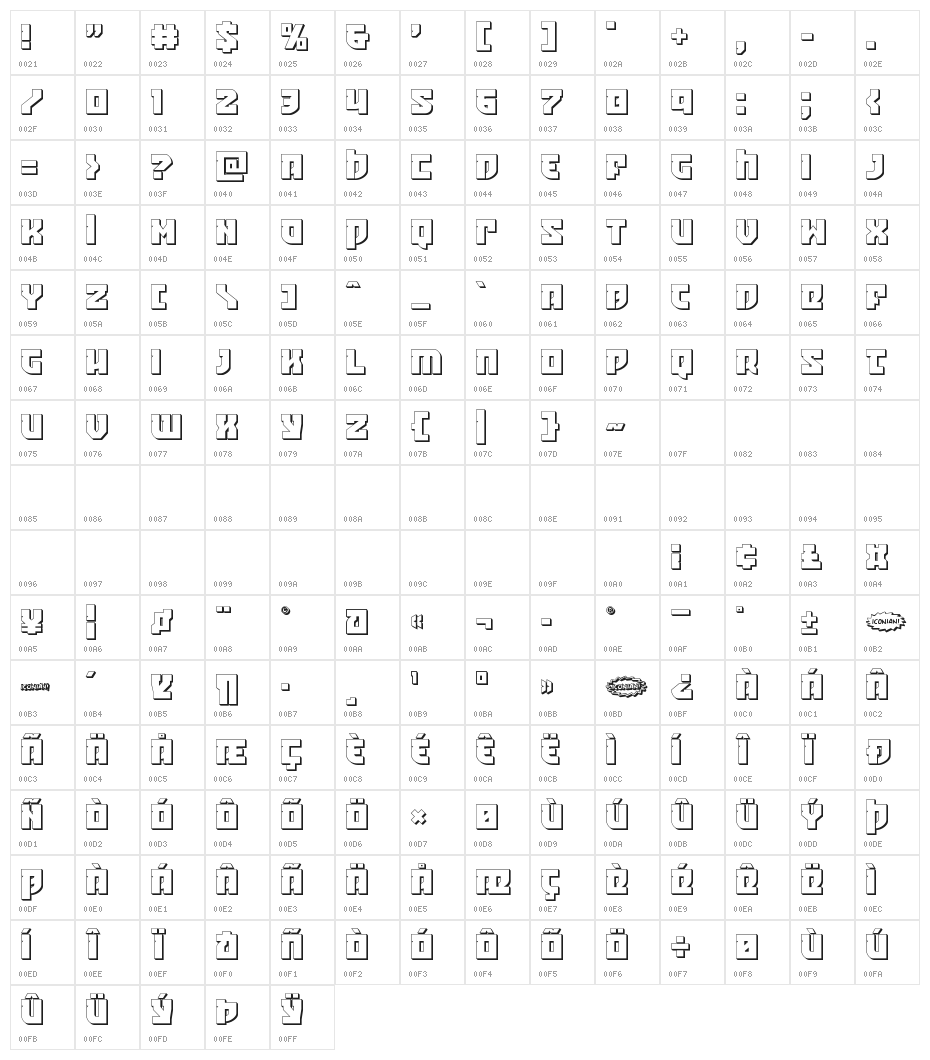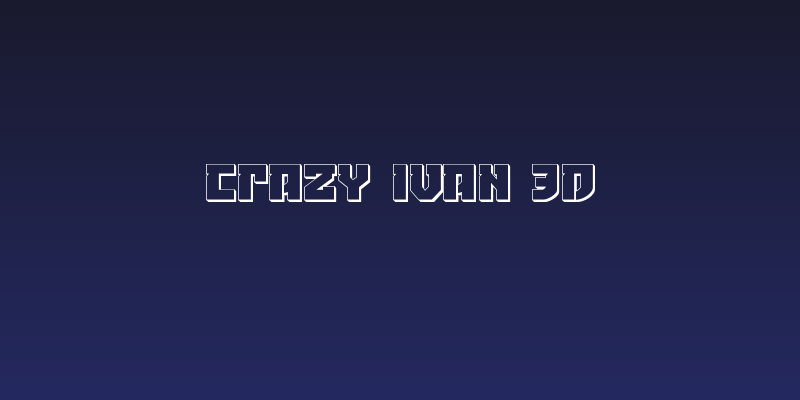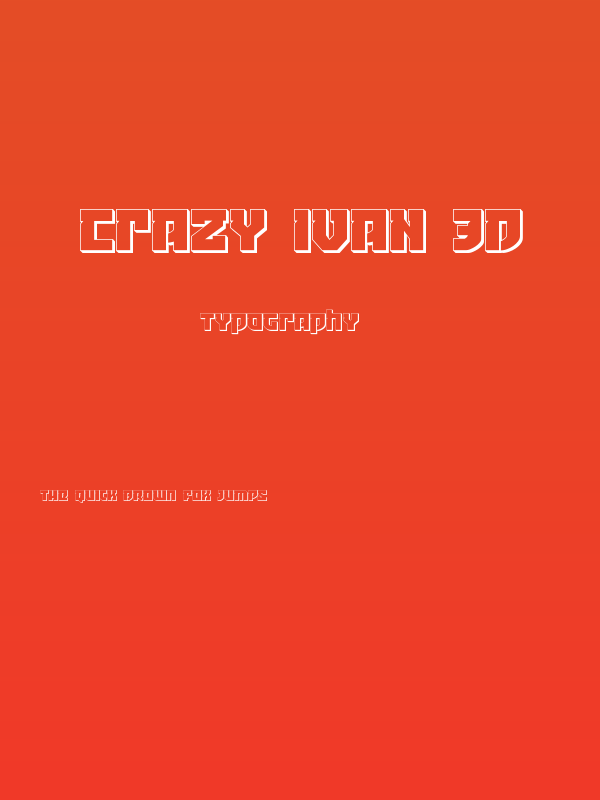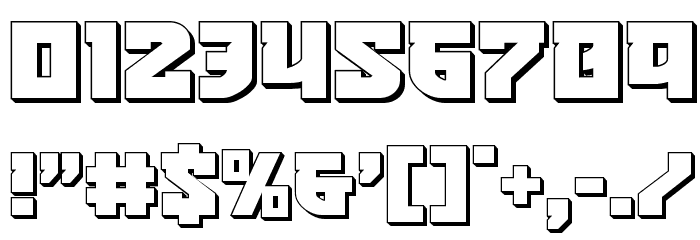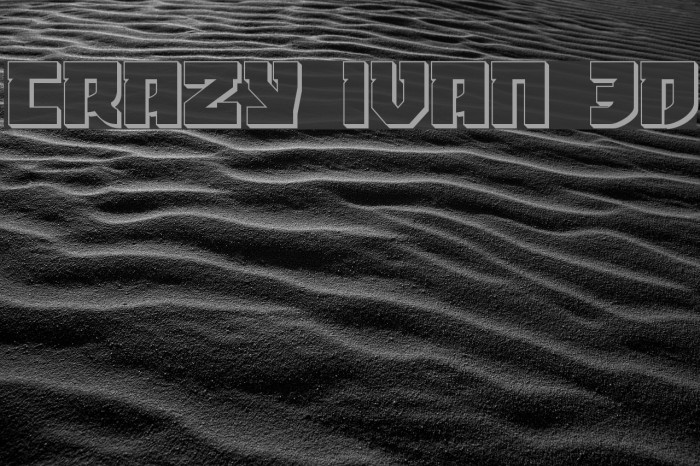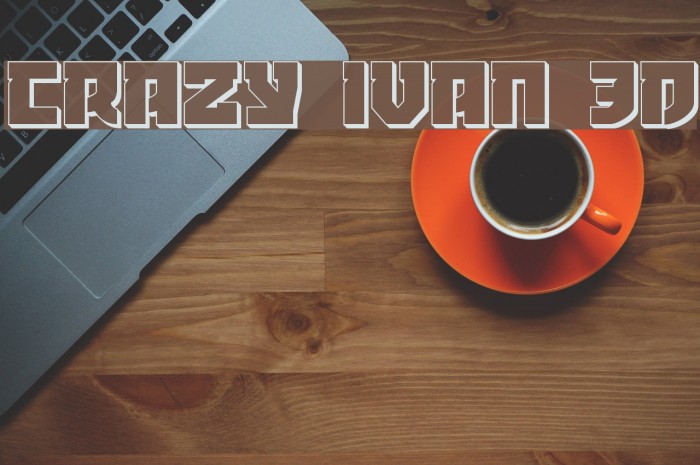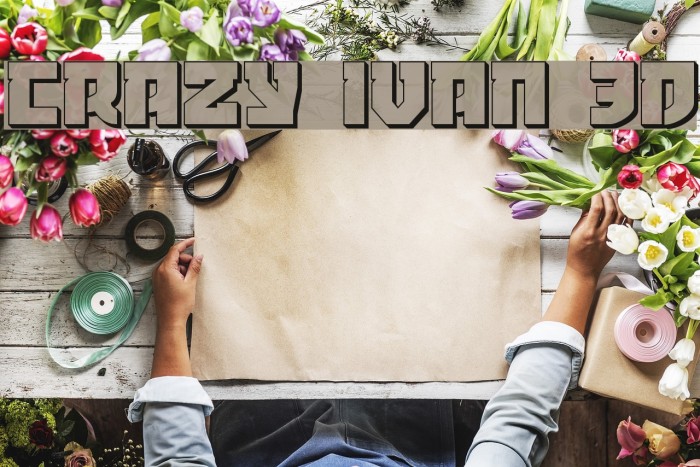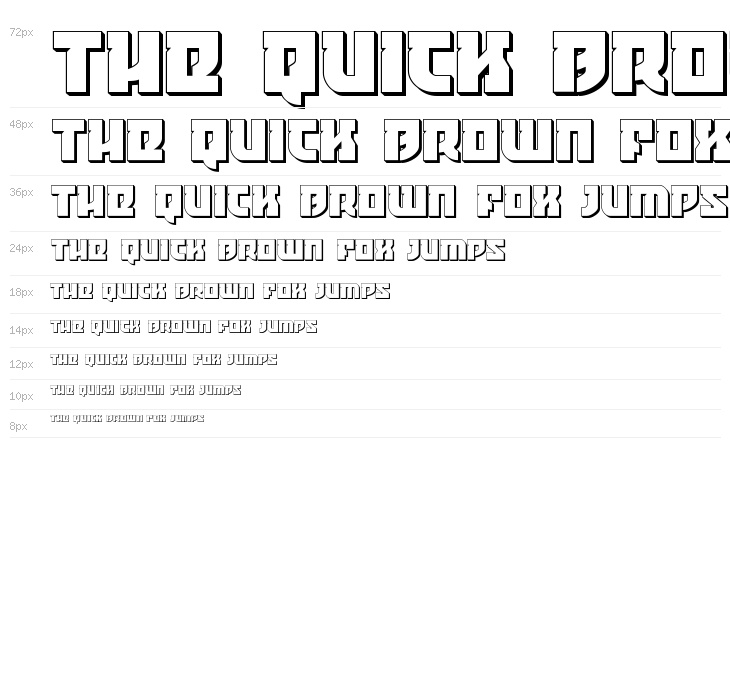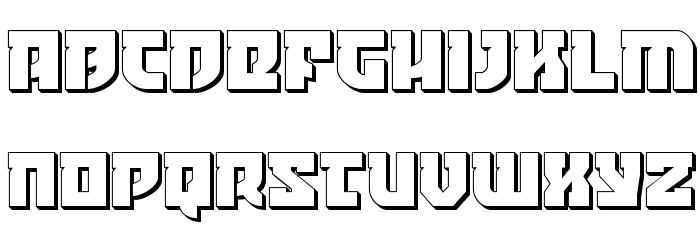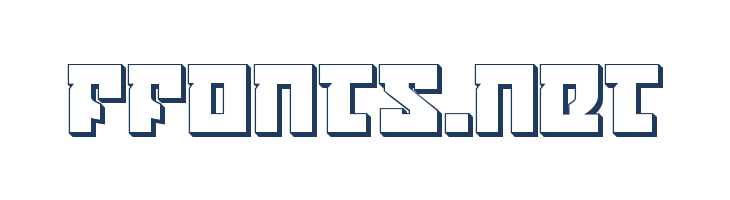
Crazy Ivan 3D Font
This font features a bold, geometric design with a three-dimensional effect that gives it a striking and modern appearance. The characters are constructed with thick lines and sharp angles, creating a sense of depth and solidity. The uppercase and lowercase letters maintain a consistent style, with the uppercase being slightly more pronounced. The numbers and special characters follow the same design principles, ensuring uniformity across all elements. This font's unique 3D look makes it stand out, making it ideal for attention-grabbing designs.
| Proposed Projects | Ideal for posters, video game titles, logos, and any project needing a bold, futuristic look. |